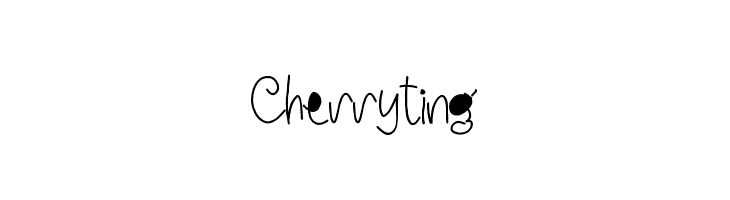
A playful, hand-drawn font with tall, narrow characters and a whimsical style.
A playful, hand-drawn font with tall, narrow letters and a whimsical style.